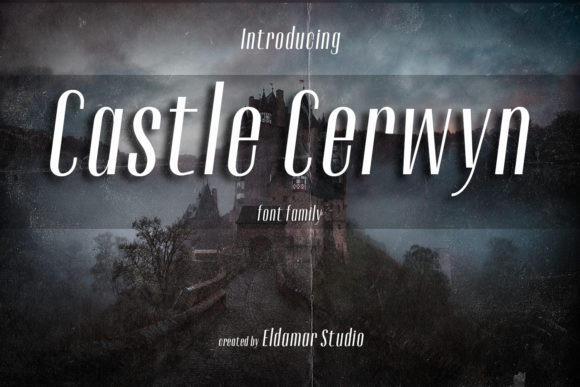
Castle Cerwyn: The Clean Sans Serif Font for Smart Branding
As a small business owner, you quickly realize that your brand is more than just a logo or a product; it is the sum of every interaction a customer has with you. From the moment they see your Instagram post to the second they peel the sticker off your packaging, typography plays a silent but powerful role in how your business is perceived. If you are looking for a typeface that balances modern elegance with everyday practicality, Castle Cerwyn might be the missing piece in your brand identity puzzle. This minimal, yet elegant sans serif font offers the versatility needed to create a cohesive look across all your marketing materials without screaming for attention.
Why Minimal Typography Builds Trust
In the world of boutique retail, handmade goods, and service-based startups, clarity is king. Customers are often scanning information quickly on mobile screens or glancing at shelves in a crowded market. A cluttered or overly decorative font can make your message hard to read, leading to confusion or lost sales. Castle Cerwyn solves this by offering a neat and simple style that prioritizes readability. Its clean lines and balanced spacing ensure that your text looks professional whether it is printed on a tiny product label or displayed on a large website banner.
When you use a consistent sans serif font like Castle Cerwyn, you signal to your audience that your business is organized and trustworthy. It strips away unnecessary noise, allowing your product photography and brand colors to take center stage. This approach is particularly effective for businesses in the beauty, wellness, and home decor sectors, where a calm and curated aesthetic is essential for connecting with target customers.
Real-World Applications for Your Business
The true value of any creative font lies in its application. Castle Cerwyn is not just a display font for headlines; it is a workhorse capable of handling various design assets. Here is how you can integrate it into your daily operations:
- Packaging Design: Use it for ingredient lists on candle labels or nutritional facts on food packaging. Its legibility ensures compliance and clarity even at small sizes.
- Social Media Graphics: Create Instagram stories, Pinterest pins, and Facebook ads that look polished. The font's modern typography style stands out well against colorful backgrounds.
- Business Cards and Stationery: Print your contact details and thank-you cards with a typeface that feels premium yet approachable.
- Website Visuals: Implement it for navigation menus, call-to-action buttons, and body text to improve user experience on your online shop.
- Menus and Flyers: Café owners and service providers can use it to list services or items clearly, ensuring customers can read options from a distance.
For example, imagine a handmade soap seller. By using Castle Cerwyn for the brand name on the wrapper and the detailed description on the back, the entire package feels unified. Similarly, a life coach could use this font for webinar slides and workbook headers, projecting an image of professionalism and reliability.
Strategic Font Pairing for Depth
While Castle Cerwyn is strong enough to stand alone, pairing it with other typefaces can add personality and depth to your brand identity. Because it is a neutral sans serif, it plays nicely with almost any other style. If your brand leans towards tradition or luxury, try pairing it with a classic serif font for your main headlines. This combination creates a sophisticated contrast that works beautifully for wedding invitations, high-end jewelry branding, or editorial-style blog posts.
Alternatively, if you want to inject some energy and human touch, pair Castle Cerwyn with a script font or a handwritten font. You might use the script for a signature or a special promotional offer while keeping Castle Cerwyn for the essential information. This hierarchy guides the reader's eye effectively, ensuring they notice the emotional hook first and the practical details second. Avoid pairing it with another busy sans serif, as this can create visual competition rather than harmony.
Readability Across Devices and Materials
One of the biggest challenges for entrepreneurs today is maintaining consistency across digital and physical touchpoints. A font that looks great on a retina display might disappear when printed on kraft paper or viewed on an older smartphone. Castle Cerwyn is designed with these real-world constraints in mind. Its open letterforms prevent ink spread on textured packaging materials, and its distinct character shapes remain clear on low-resolution screens.
This reliability is crucial for logo design and web design. When your logo scales down to a favicon or a social media profile picture, you need a typeface that retains its integrity. Castle Cerwyn's minimal structure ensures that your brand remains recognizable regardless of the medium. This consistency helps build brand recall, making it easier for customers to spot your products in a sea of competitors.
Testing Before You Commit
Before rolling out a new typeface across your entire brand, it is wise to test it in context. Download a sample of Castle Cerwyn and apply it to your most frequently used materials. Print a mock-up of your product label to see how the ink interacts with your chosen paper stock. Create a few social media templates to see how the text overlays your photos. Pay attention to line spacing and kerning; sometimes, a font needs slight adjustments to feel perfectly aligned with your specific layout.
In summary, building a memorable brand does not require expensive overhauls or complex designs. Often, it comes down to choosing the right tools. Castle Cerwyn offers a blend of simplicity and elegance that can elevate your branding from amateur to professional. By focusing on clarity and consistency, this sans serif font helps you communicate your value effectively, turning casual browsers into loyal customers.